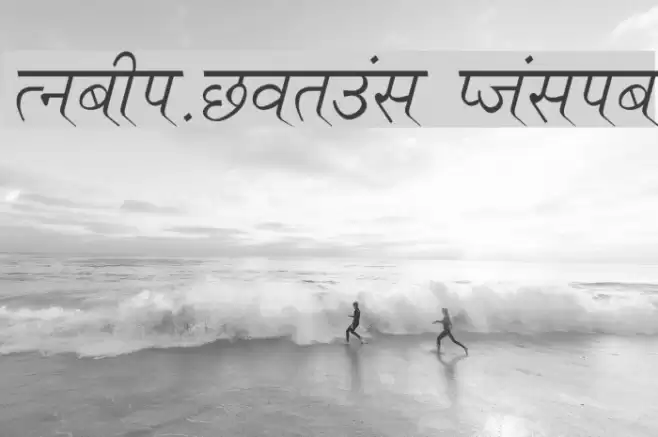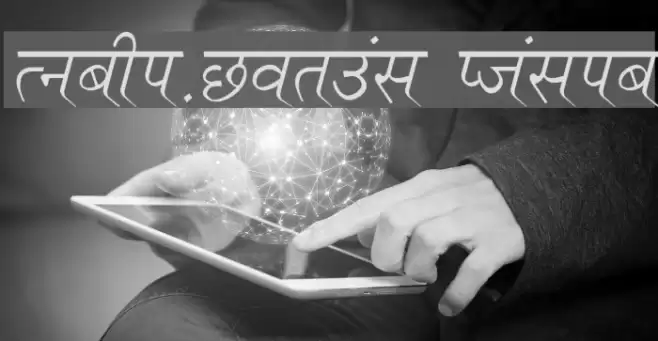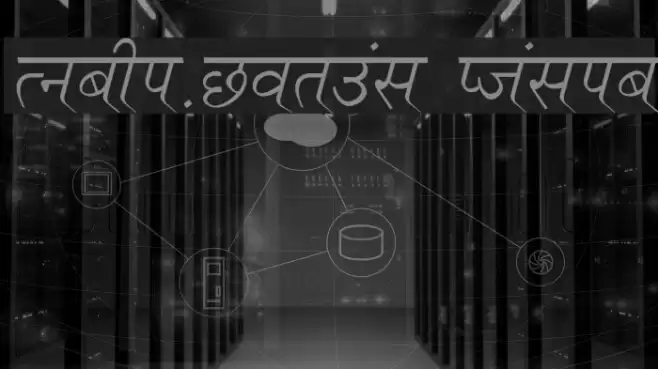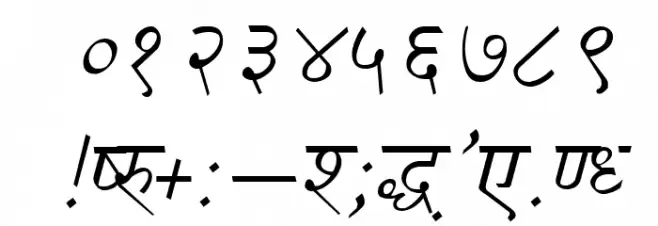
Ruchi-Normal Italic Font
Ruchi-Normal Italic Description
This font showcases a traditional script style with elegant curves and a flowing design. The characters are intricately crafted, reflecting a classic aesthetic that is both timeless and sophisticated. The italic slant adds a dynamic and graceful touch, enhancing the overall fluidity of the script. Each letter is meticulously detailed, with smooth transitions and a harmonious balance between thick and thin strokes. The numerals and special characters maintain the same stylistic integrity, ensuring consistency throughout the font. This script is ideal for projects that require a touch of elegance and cultural authenticity.
A traditional script font with elegant curves and an italic slant from Uncategorized fonts.
- Proposed Projects: Ideal for cultural projects, invitations, certificates, and artistic designs.
- Overall Style: Classic
- Use Case: Logos, Artistic designs, Cultural projects